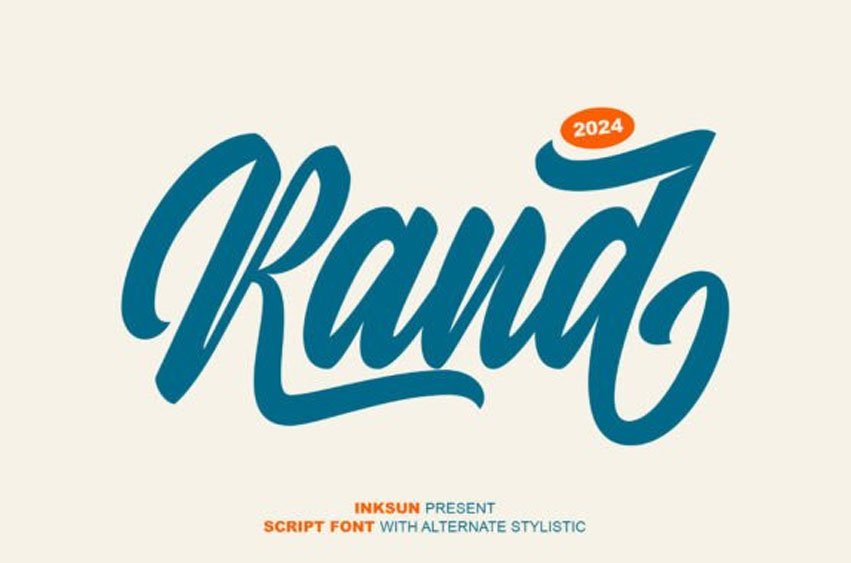
Rand Font is a soulful and high-impact bold script typeface that masterfully captures the essence of classic hand-lettering with a modern, professional edge. Characterized by its thick, confident strokes and a fluid, rhythmic baseline, this font exudes a sense of nostalgic craftsmanship and warm personality. The design features bold silhouettes with smooth, rounded terminals and elegant, sweeping curves that provide a dynamic visual flow.